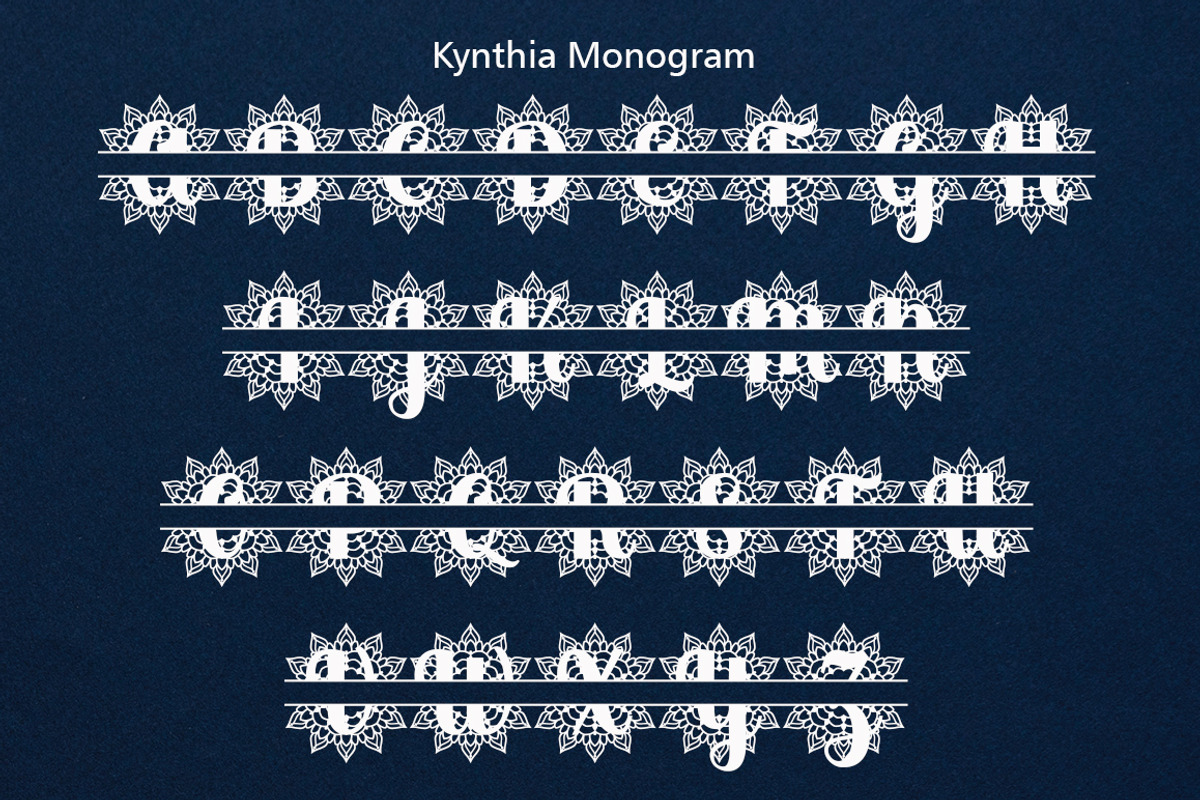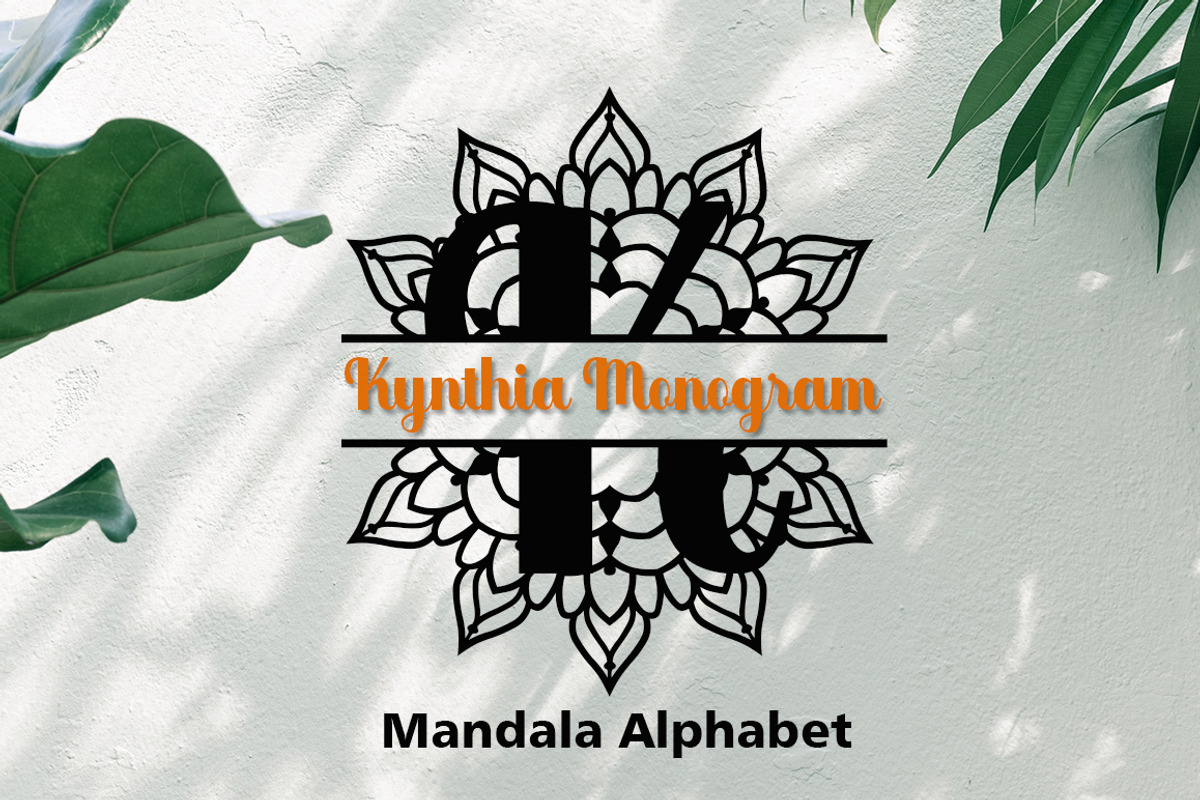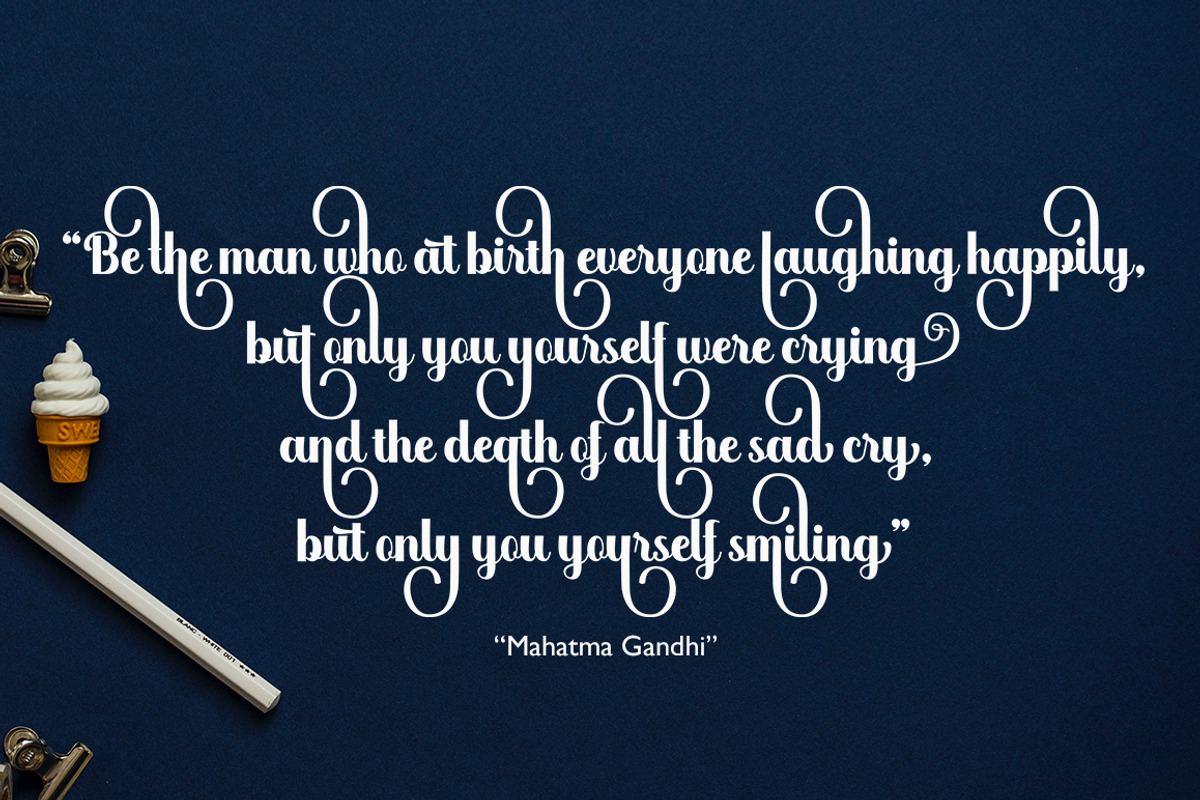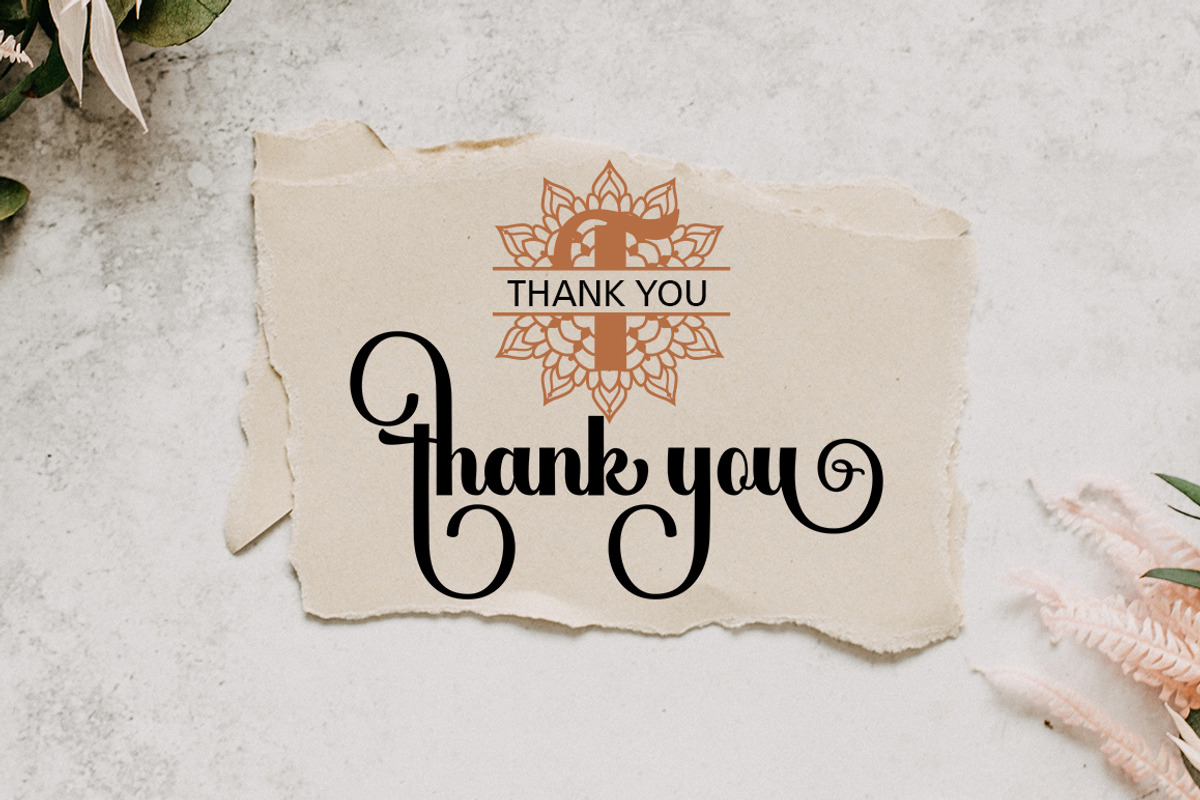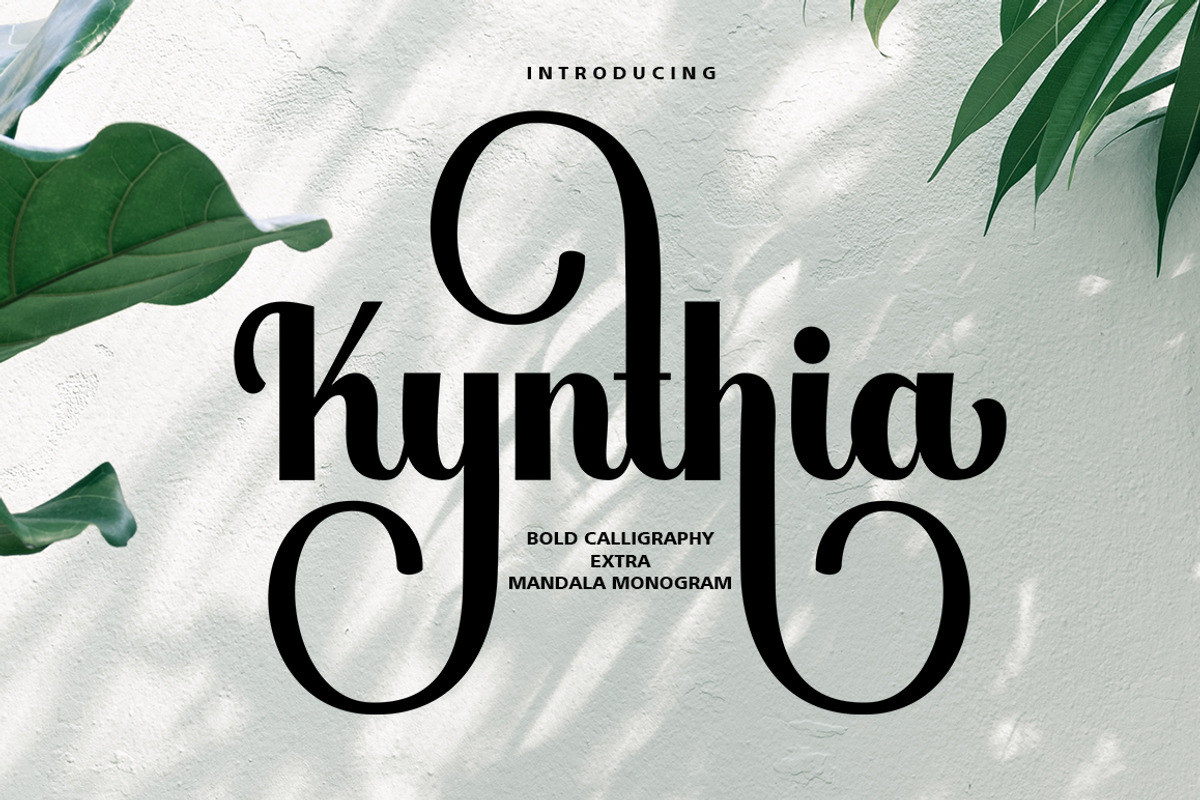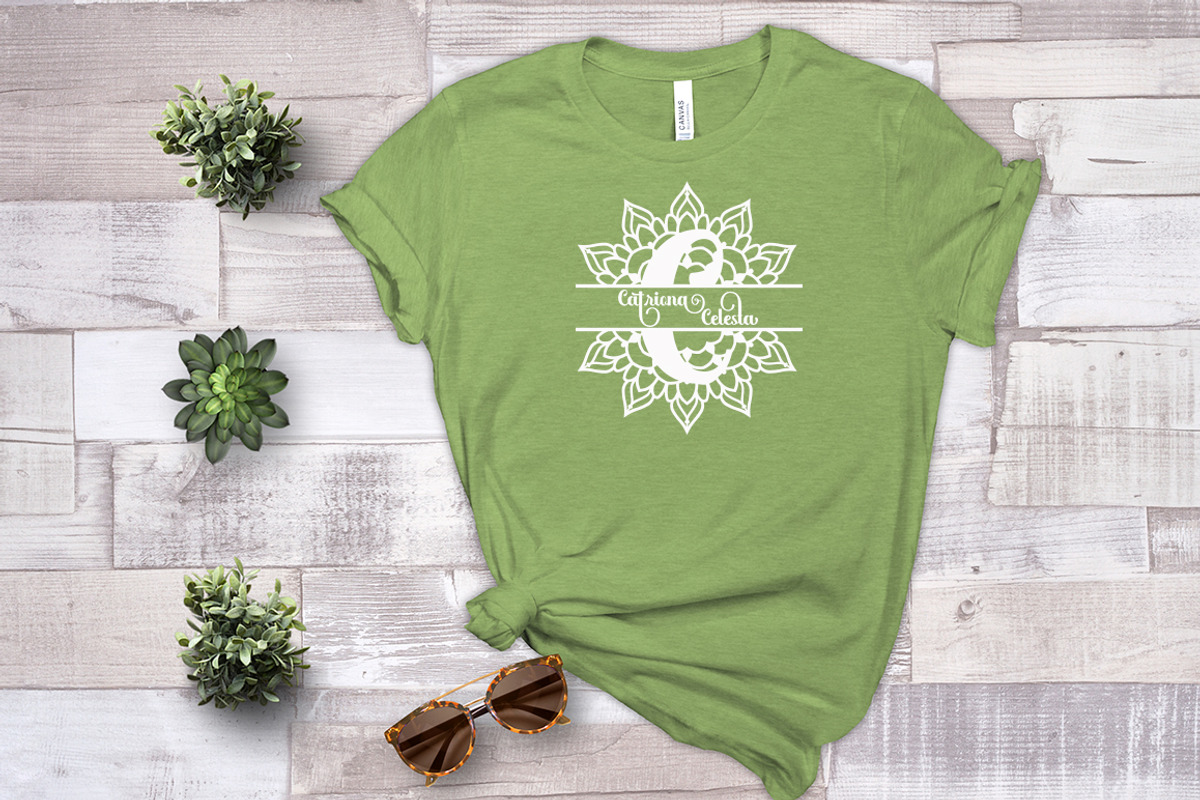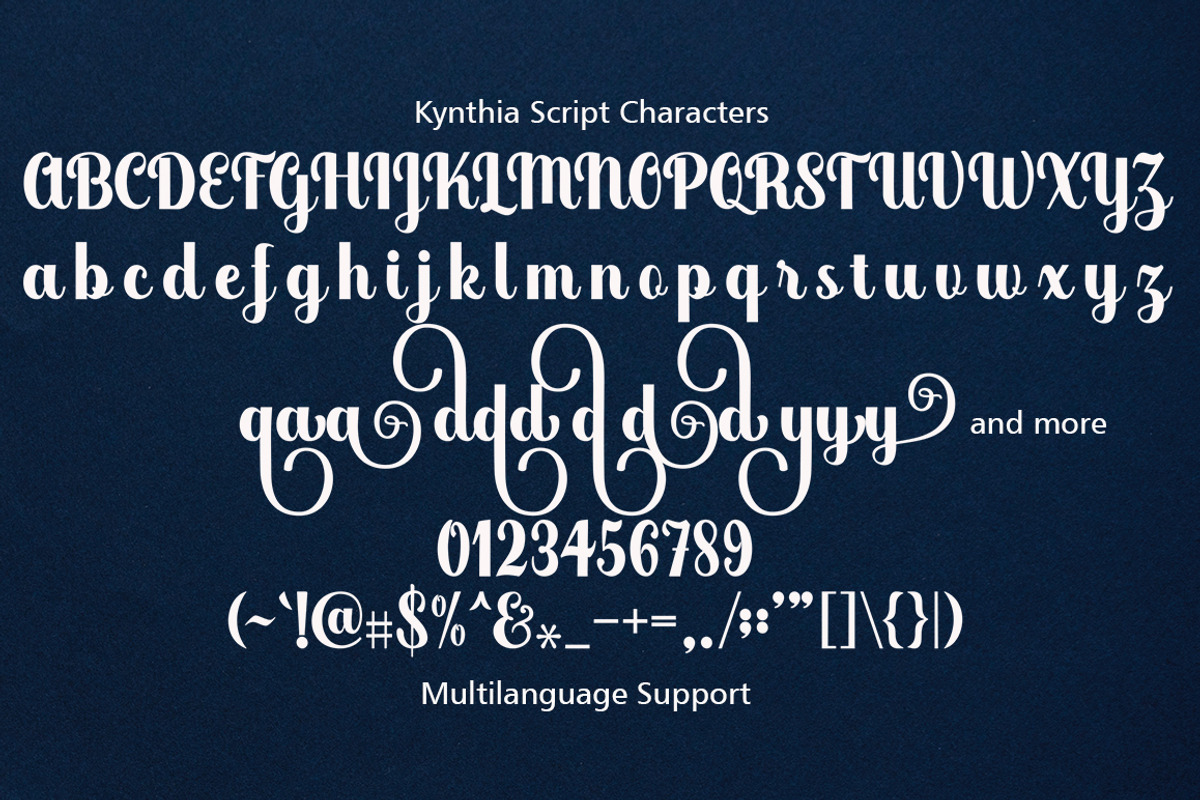
Kynthia - Extra Mandala Monogram
Kynthia Script is highly legible Script typeface, get touch of a bold, classic and fun Vintage Script font, With glyphs and opentype features with stylistic alternates. Can be used for various purposes. such as posters, t-shirt, signage, logos, news, badges etc. To enable the OpenType Stylistic alternates, you need a program that supports OpenType features such as Adobe Illustrator CS, Adobe Indesign & CorelDraw X6-X7, Microsoft Word 2010 or later versions.
Kynthia Monogram Is Guided by a very perfect monogram mandala and specially designed by Khairul Syuhada. This font will looks awesome and amazing in many way to your latest project. Mandalas Monogram is perfect for many different project such as logos & branding, invitation, stationery, wedding designs, social media posts, advertisements, product packaging, product designs, label, photography, watermark, special events or anything.